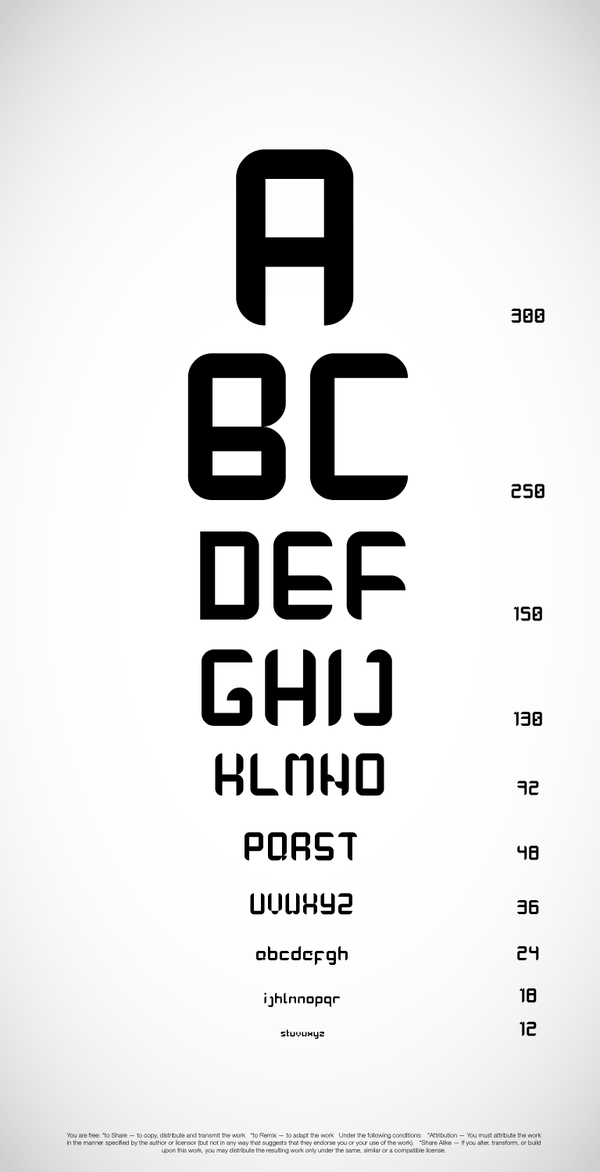
Raptor Sans
A retro-futuristic free font
Raptor Sans is a bold, futuristic yet readable font. To illustrate its retro sci-fi feel I decided to recreate three of my favorite sci-fi book covers from the 60s-70s, which served as an inspiration for this typeface.